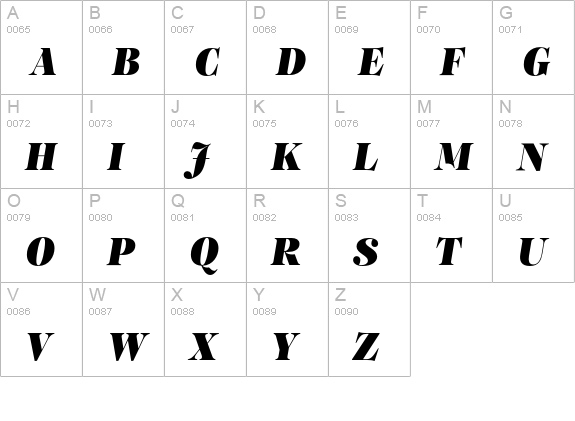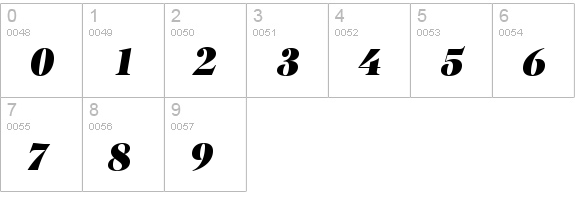
PFRegalDisplayPro-UBlackItalic Font Details
PFRegalDisplayPro-UBlackItalic is a stunning font that exudes elegance and sophistication with its bold and italicized design. This font is perfect for creating eye-catching headlines, titles, and other design elements that demand attention. The sleek lines and stylish curves of PFRegalDisplayPro-UBlackItalic make it a versatile choice for a wide range of projects, from branding to editorial design. What sets PFRegalDisplayPro-UBlackItalic apart is that it is available for free download at FontsMarket.com. This means that you can easily access this high-quality font without any cost, making it a valuable addition to your font collection. Whether you are designing a poster, logo, or website, PFRegalDisplayPro-UBlackItalic is sure to make a bold statement and elevate your project to the next level. Don't miss out on this fantastic opportunity to enhance your designs with this exceptional font.